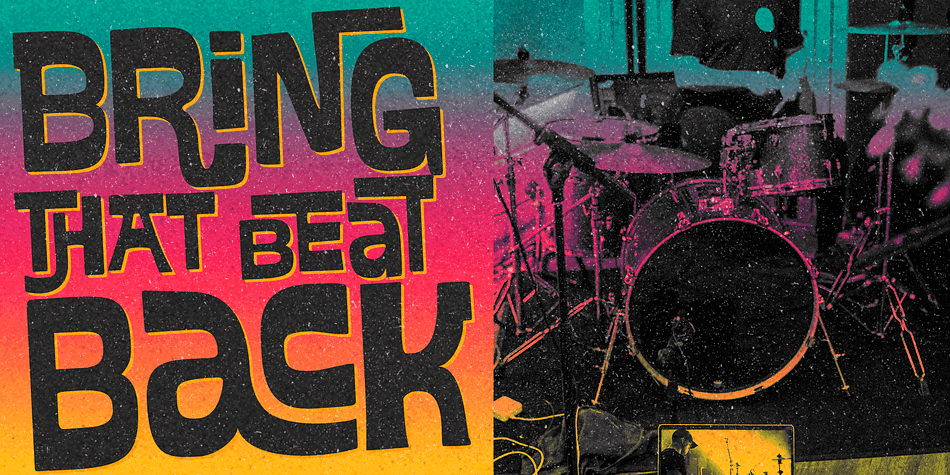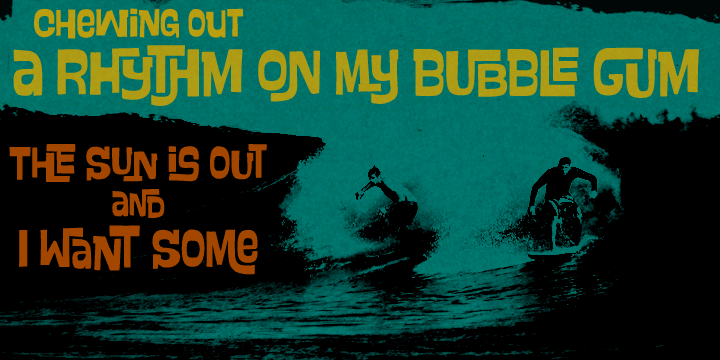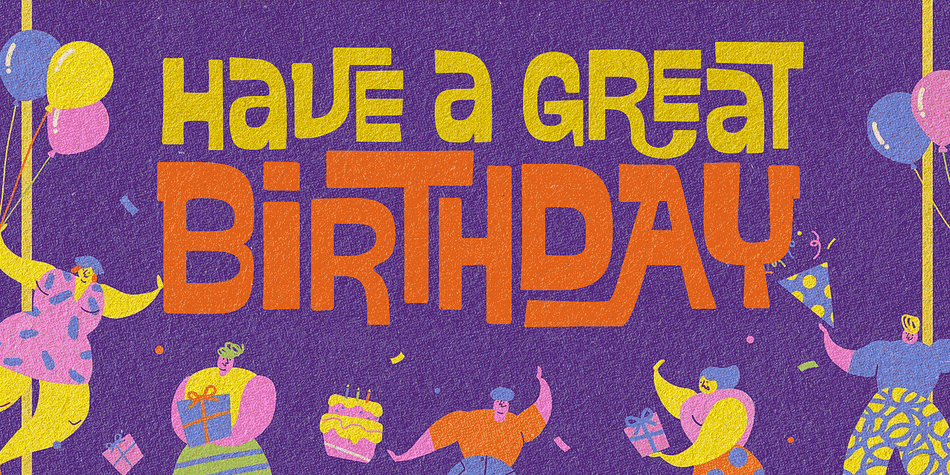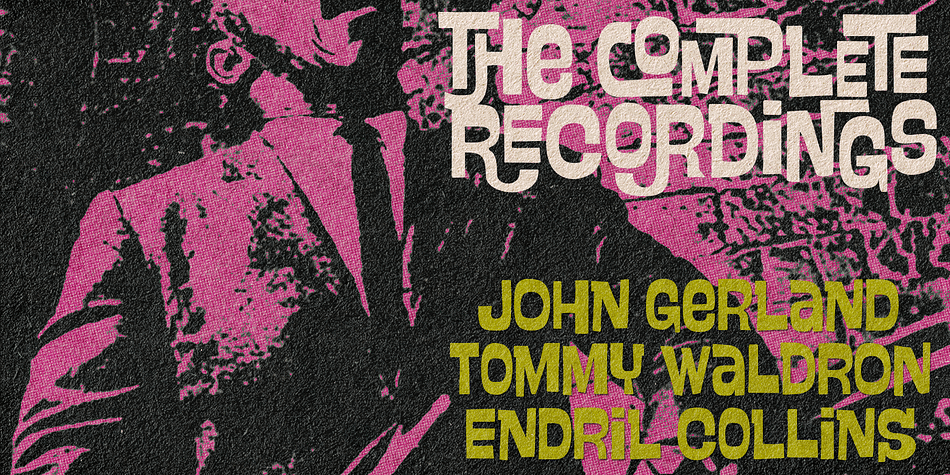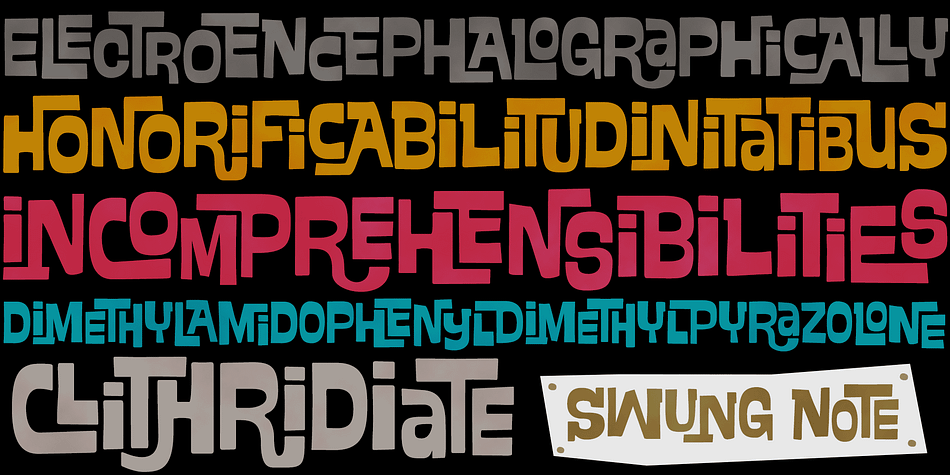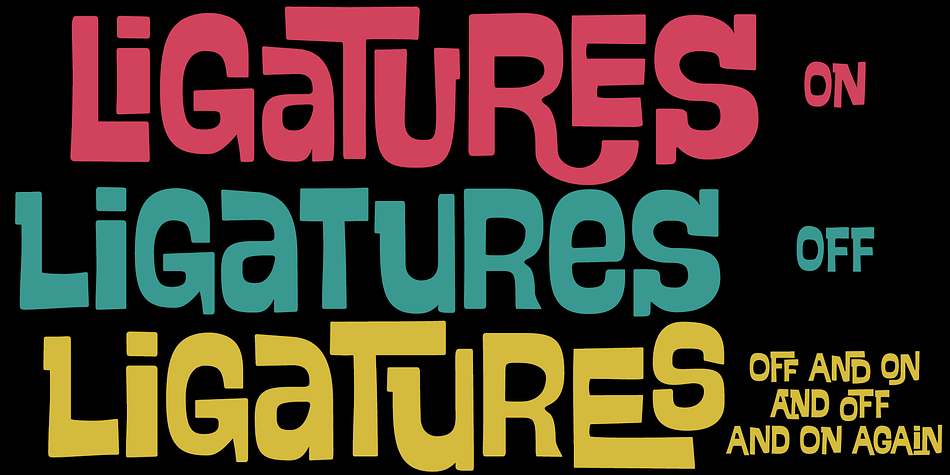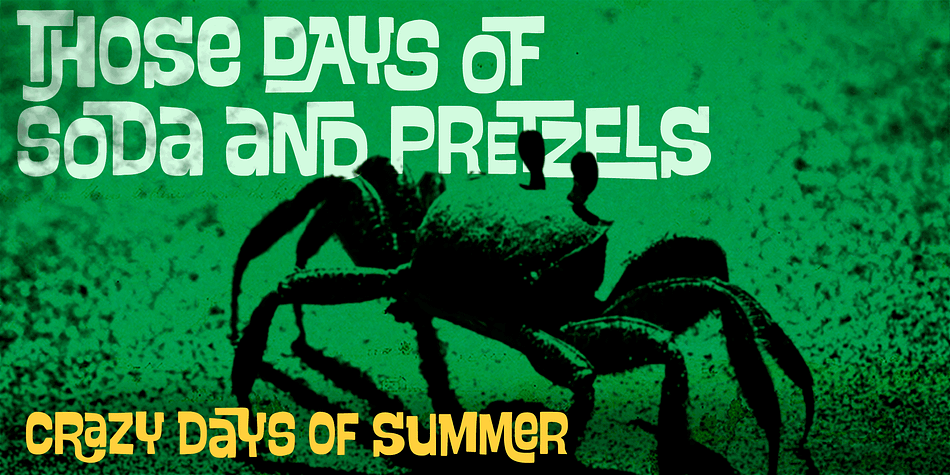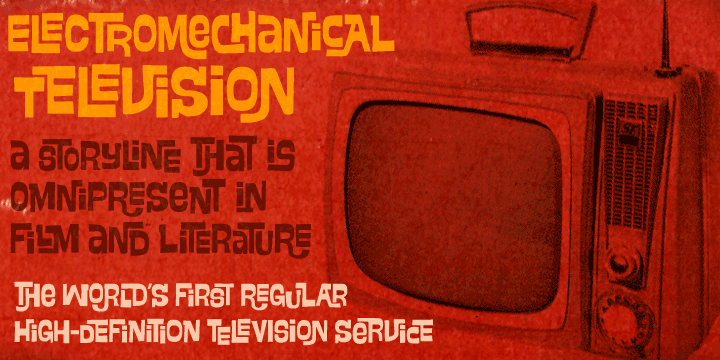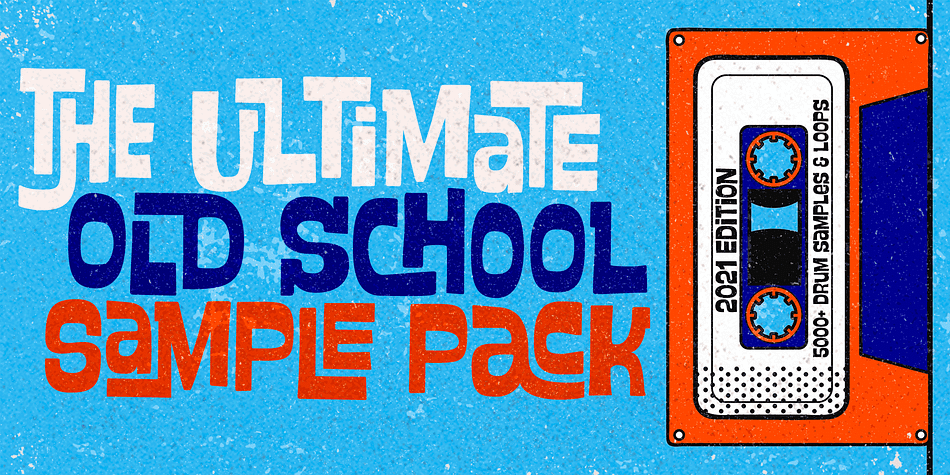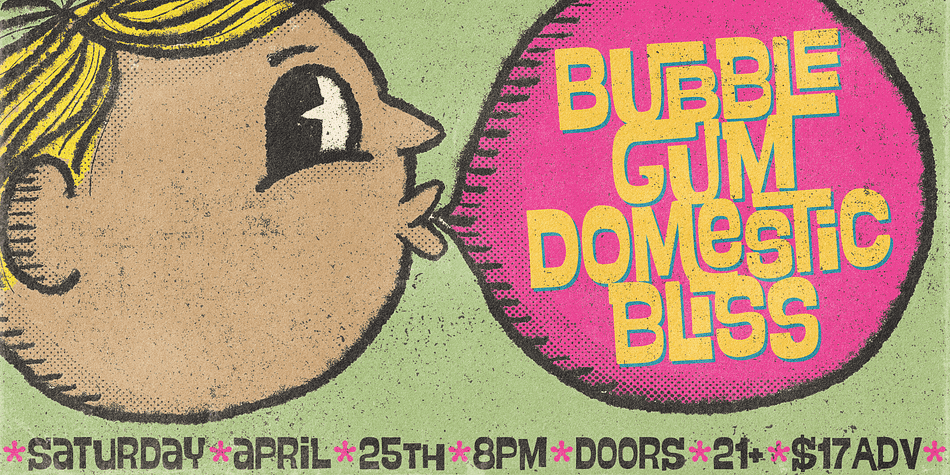
Swung Note is a comic and kids font published by PintassilgoPrints.
Swung Note is a dynamic font, packed with hundreds of smart automatic interlock pairs that do their magic in Open Type savvy applications. As the letters assume different shapes in different ligatures, the results looks surprisingly natural. A great and playful tool for creating impressive custom-lettered-looking designs!